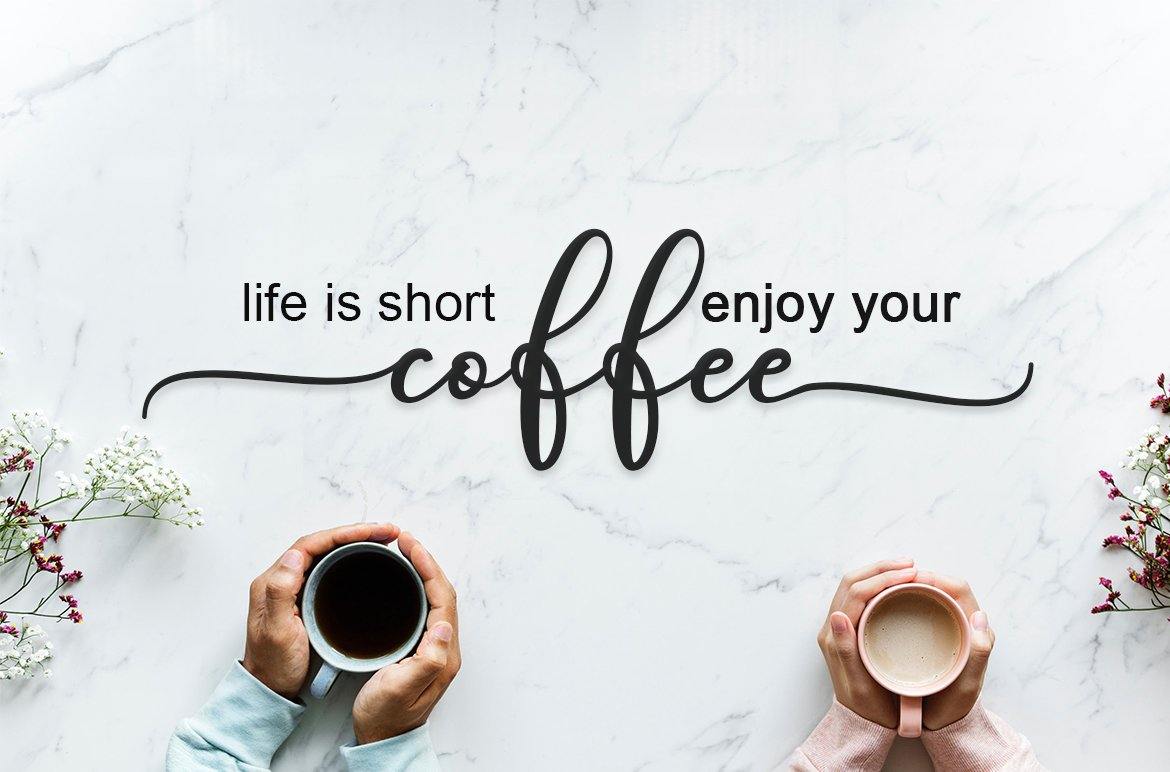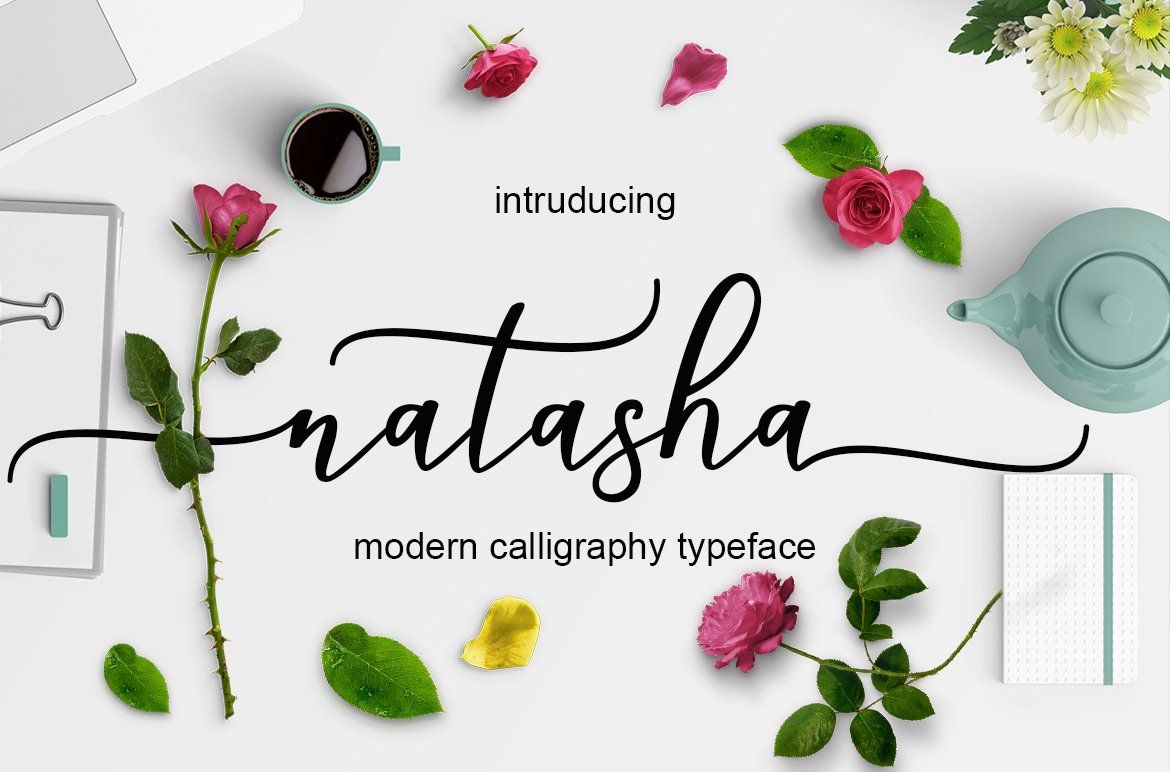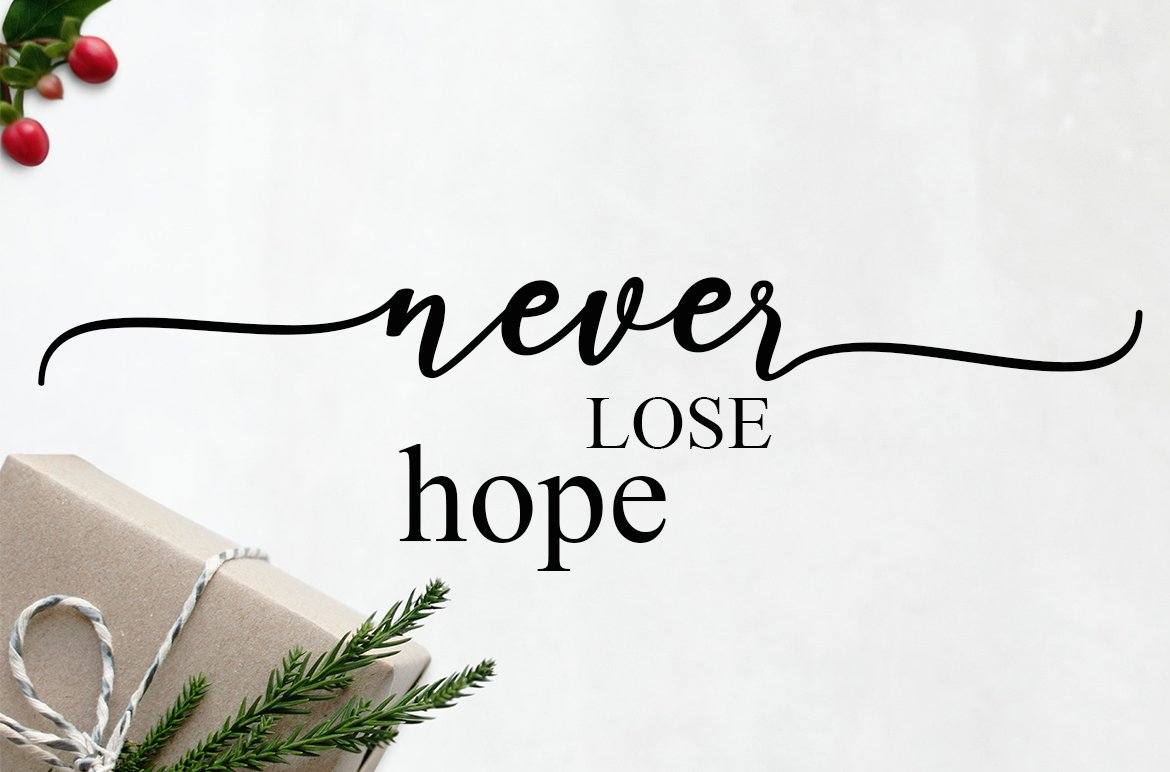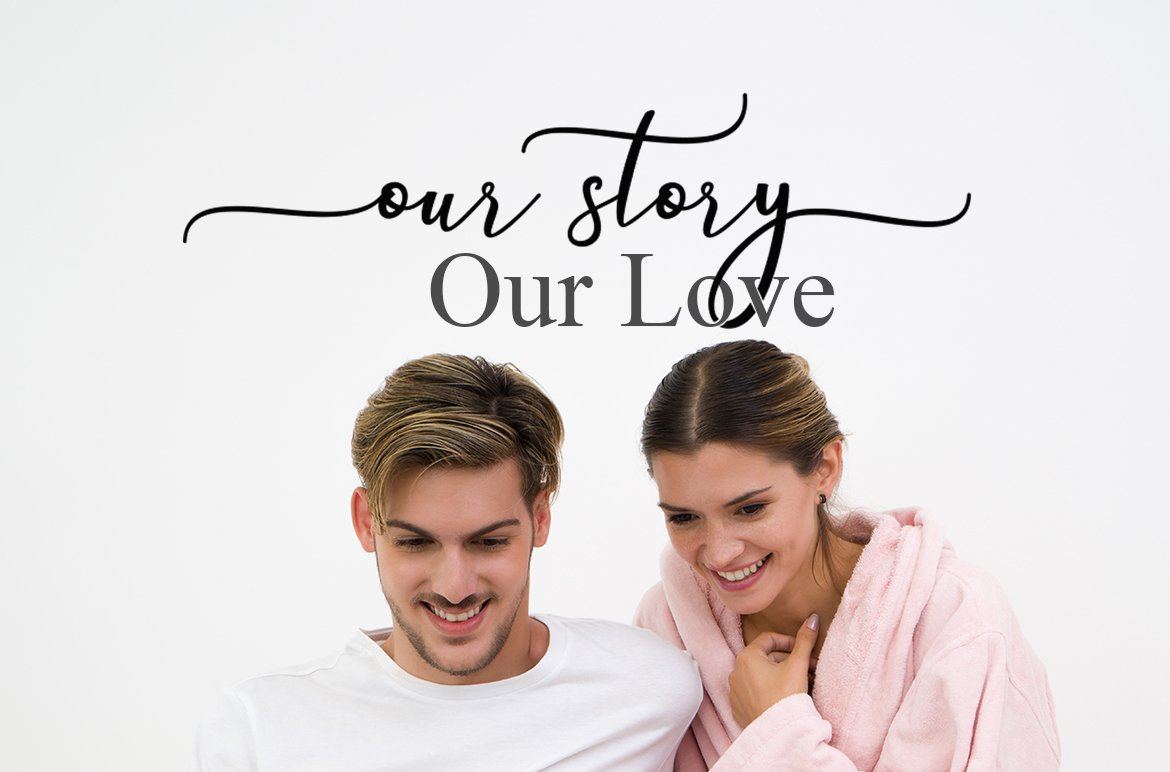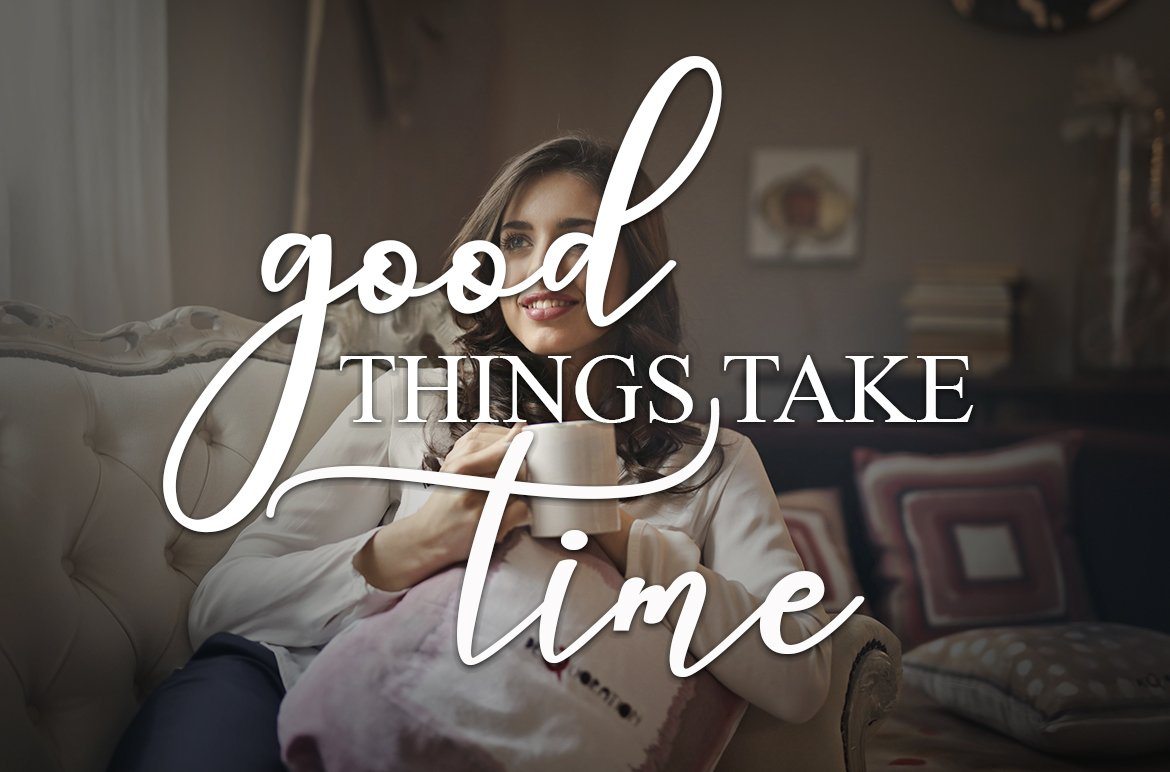
Natasha Script
Natasha Script a new fresh & modern script with a handmade calligraphy style, decorative characters So beautiful on invitation like greeting cards, branding materials, business cards, quotes, posters, and more!! The ZIP file are include the following : natasha Script TTF natasha Script  OTF to use a variety of flying machines, you need a program that supports OpenType features such as Adobe Photoshop Cs / Adobe Photoshop CC, Adobe Illustrator CS / Adobe Illustrator CC, Adobe Indesign and Corel Draw and many more programs that support OpenType.If you do not have a program that supports OpenType, you can access all the alternate glyphs using Font Book (Mac) or Character Map (Windows) If you have any question, don’t hesitate to contact me by email  Thanks and happy designing 🙂 Thank You for purchase! Natasha Script a new fresh & modern script with a handmade calligraphy style, decorative characters So beautiful on invitation like greeting cards, branding materials, business cards, quotes, posters, and more!! The ZIP file are include the following : natasha Script TTF natasha Script  OTF to use a variety of flying machines, you need a program that supports OpenType features such as Adobe Photoshop Cs / Adobe Photoshop CC, Adobe Illustrator CS / Adobe Illustrator CC, Adobe Indesign and Corel Draw and many more programs that support OpenType.If you do not have a program that supports OpenType, you can access all the alternate glyphs using Font Book (Mac) or Character Map (Windows) If you have any question, don’t hesitate to contact me by email  Thanks and happy designing 🙂 Thank You for purchase! Natasha Script a new fresh & modern script with a handmade calligraphy style, decorative characters So beautiful on invitation like greeting cards, branding materials, business cards, quotes, posters, and more!! The ZIP file are include the following : natasha Script TTF natasha Script  OTF to use a variety of flying machines, you need a program that supports OpenType features such as Adobe Photoshop Cs / Adobe Photoshop CC, Adobe Illustrator CS / Adobe Illustrator CC, Adobe Indesign and Corel Draw and many more programs that support OpenType.If you do not have a program that supports OpenType, you can access all the alternate glyphs using Font Book (Mac) or Character Map (Windows) If you have any question, don’t hesitate to contact me by email  Thanks and happy designing 🙂 Thank You for purchase!